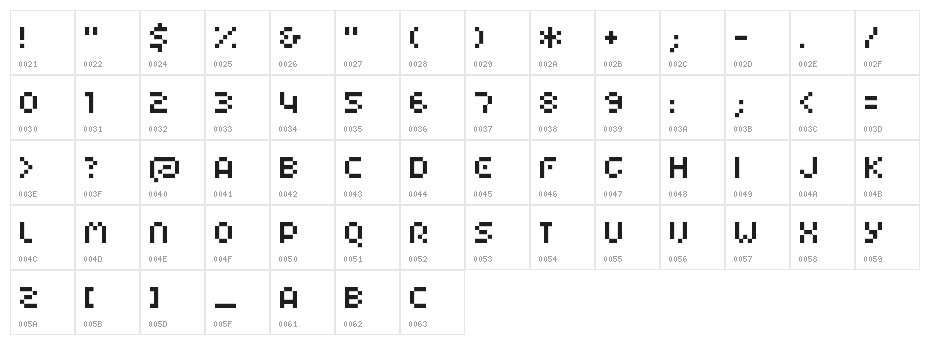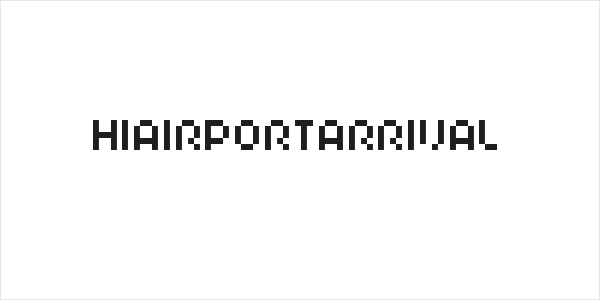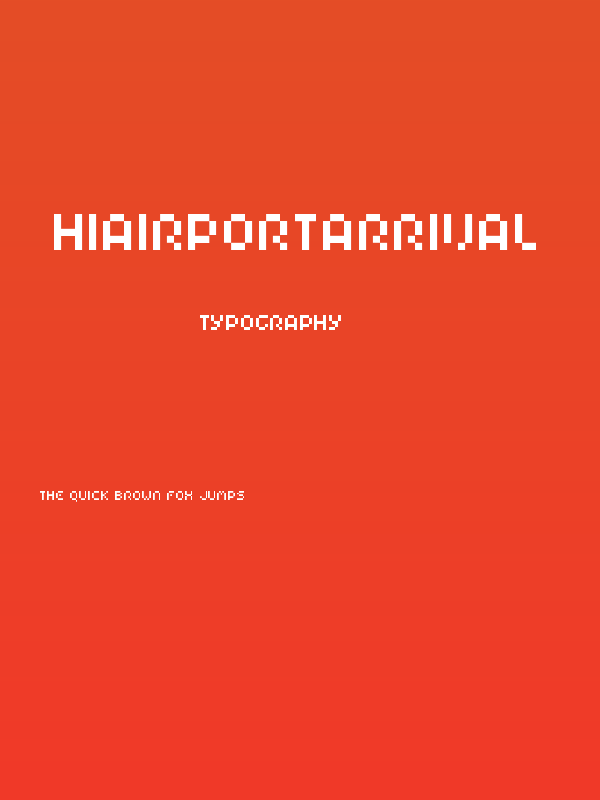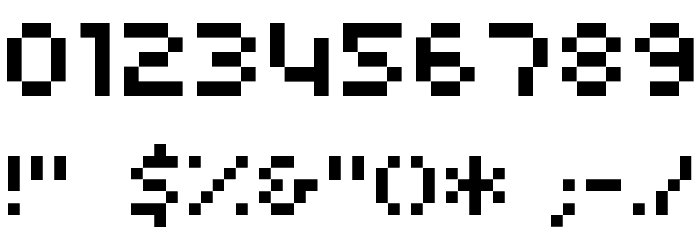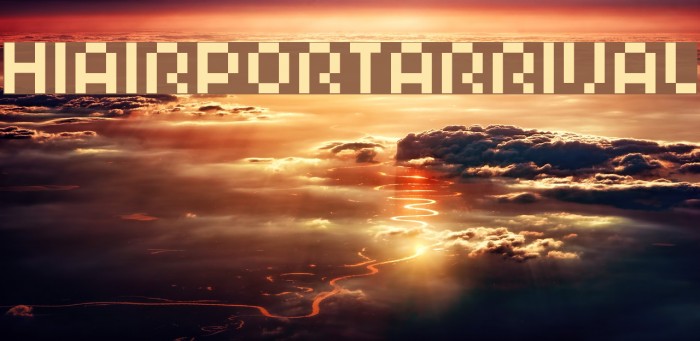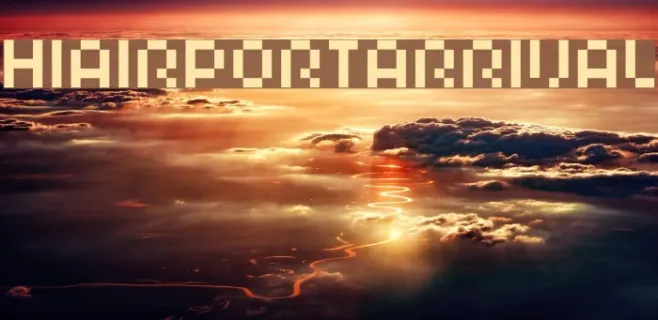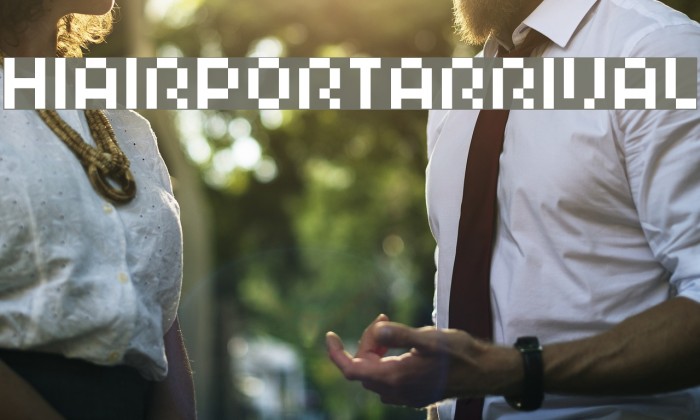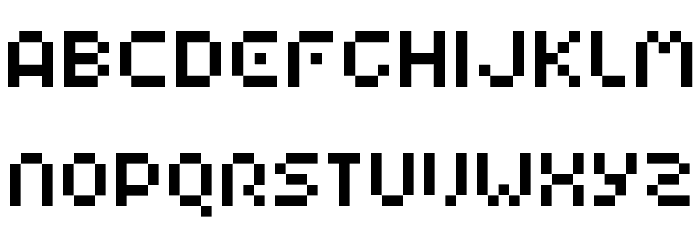
HIAIRPORTARRIVAL Font
HIAIRPORTARRIVAL Description
This font features a pixelated, blocky design reminiscent of early digital displays and retro video games. Each character is constructed with a grid-like precision, giving it a distinctly digital and geometric appearance. The uniformity in stroke width across all characters contributes to a cohesive and structured look. The uppercase and lowercase letters maintain a consistent height, enhancing readability and creating a compact visual style. Numbers and special characters are designed with the same pixelated approach, ensuring a harmonious overall aesthetic. This font's nostalgic appeal is perfect for projects aiming to evoke a sense of vintage technology or digital minimalism.
| Use Case | Logos, Headlines, Digital displays |
| Proposed Projects | Ideal for video game designs, tech-themed posters, digital art projects, and retro-style branding. |